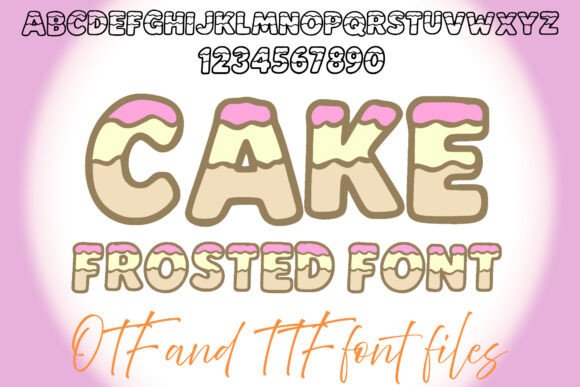
Cake Frosted Font: The Sweetest Addition to Your Design
Are you looking for a font that is as sweet as it looks? Look no further than the Cake Frosted Font! With its icing-topped, chubby letters in pastel tones, this font is perfect for bakery branding, birthday invitations, baby shower designs, or anything that needs a sugary touch.
What is Cake Frosted Font?
Cake Frosted Font is a unique and playful font that is designed to resemble frosted cake icing. The font features chubby letters with a textured, icing-topped effect that gives it a 3D appearance. The letters are crafted in pastel tones, which add to the font’s sweet and charming personality.
Perfect for Bakery Branding
If you’re a bakery owner looking for a font that can help you stand out from the competition, Cake Frosted Font is an excellent choice. The font’s sweet and playful design is perfect for creating eye-catching signage, menus, and branding materials that will make your bakery look appealing and inviting.
With Cake Frosted Font, you can create custom logos, business cards, and letterheads that showcase your bakery’s personality and style. The font’s pastel tones and icing-topped effect give it a soft and feminine touch that is sure to appeal to customers of all ages.
Birthday Invitations and Party Designs
Cake Frosted Font is not just limited to bakery branding. It’s also perfect for creating birthday invitations, party decorations, and other celebration designs. The font’s playful and whimsical design makes it ideal for kids’ parties, baby showers, and other special occasions.
With Cake Frosted Font, you can create custom invitations, banners, and decorations that will add a touch of sweetness to any party or celebration. The font’s pastel tones and icing-topped effect make it easy to match with a variety of party themes and color schemes.
Baby Shower Designs and More
Cake Frosted Font is also perfect for baby shower designs, such as invitations, decorations, and gift tags. The font’s soft and feminine design makes it ideal for creating sweet and charming designs that are perfect for welcoming a new baby.
In addition to bakery branding, birthday invitations, and baby shower designs, Cake Frosted Font can be used for a variety of other design projects, such as:
- Cupcake and dessert menus
- Wedding invitations and decorations
- Party favors and gift tags
- Social media graphics and posts
- Blog and website headers
Why Choose Cake Frosted Font?
So why choose Cake Frosted Font for your design projects? Here are just a few reasons:
- Unique and playful design: Cake Frosted Font features a unique and playful design that is sure to stand out from the crowd.
- Pastel tones: The font’s pastel tones add a soft and feminine touch to any design.
- Icing-topped effect: The font’s icing-topped effect gives it a 3D appearance that adds depth and interest to any design.
- Versatile: The font can be used for a variety of design projects, from bakery branding to party decorations.
Cake Frosted Font is a sweet and playful font that is perfect for bakery branding, birthday invitations, baby shower designs, and more. With its icing-topped, chubby letters in pastel tones, this font is sure to add a touch of sweetness to any design project. Whether you’re a designer, baker, or party planner, Cake Frosted Font is a great addition to your design toolbox.